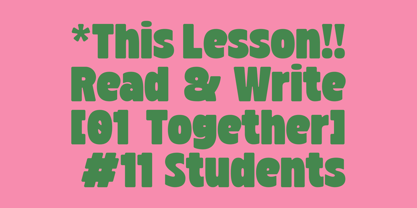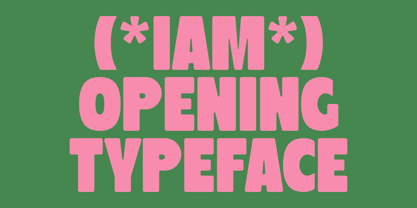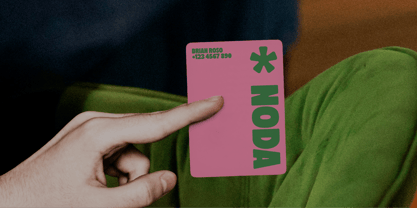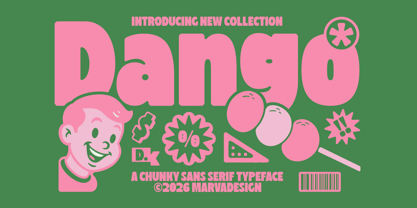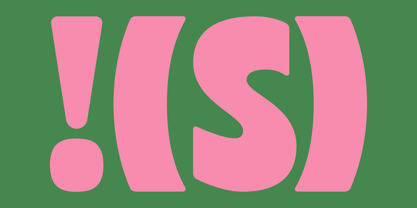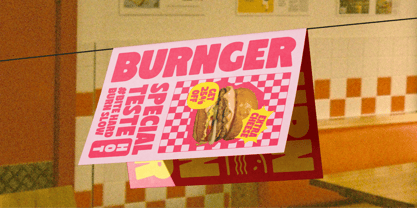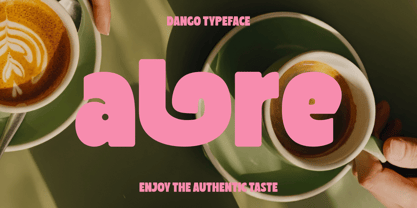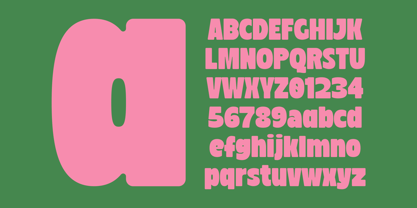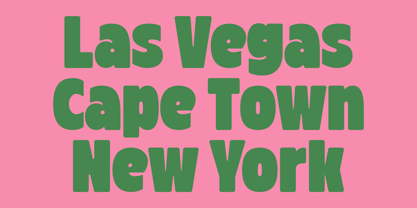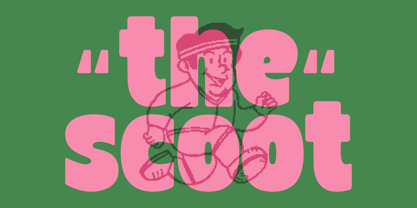
Dango
by Marvadesign
The Dango Font Family was designed by Febrie Setiawan and published by Marvadesign. Dango contains 1 styles. More about this family
Dango is a chunky sans serif typeface that embraces boldness, playfulness, and strong visual impact through its soft, inflated letterforms. Built with heavy weight proportions and rounded terminals, it creates a friendly yet confident tone that feels both nostalgic and contemporary. The exaggerated curves and tight spacing give it a compact, almost bubbly appearance, making every word feel cohesive and solid on the page. Subtle quirks in the letter construction such as the softened corners, slightly irregular counters, and expressive punctuation add personality without sacrificing readability. Designed for high-impact display use, Dango thrives in headlines, posters, branding, packaging, and editorial layouts where attention is key. Its thick structure holds up well in both positive and negative space, allowing for strong color pairings and striking contrast, as seen in vibrant combinations like pink and green. The typeface carries a retro-inspired charm reminiscent of vintage advertising and playful pop culture, yet it remains versatile enough for modern visual systems. With its distinctive weight and character, Dango delivers a bold voice that feels fun, approachable, and unmistakably memorable.
Designers: Febrie Setiawan
Foundry: Marvadesign